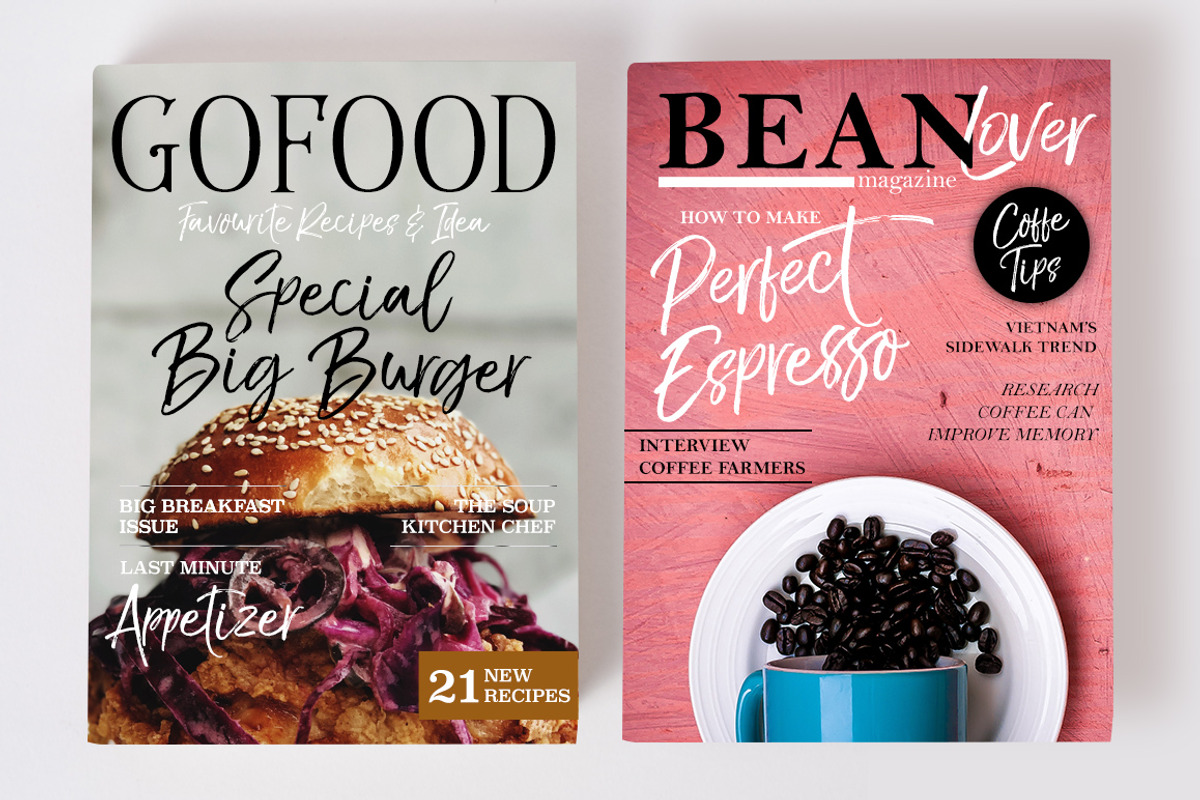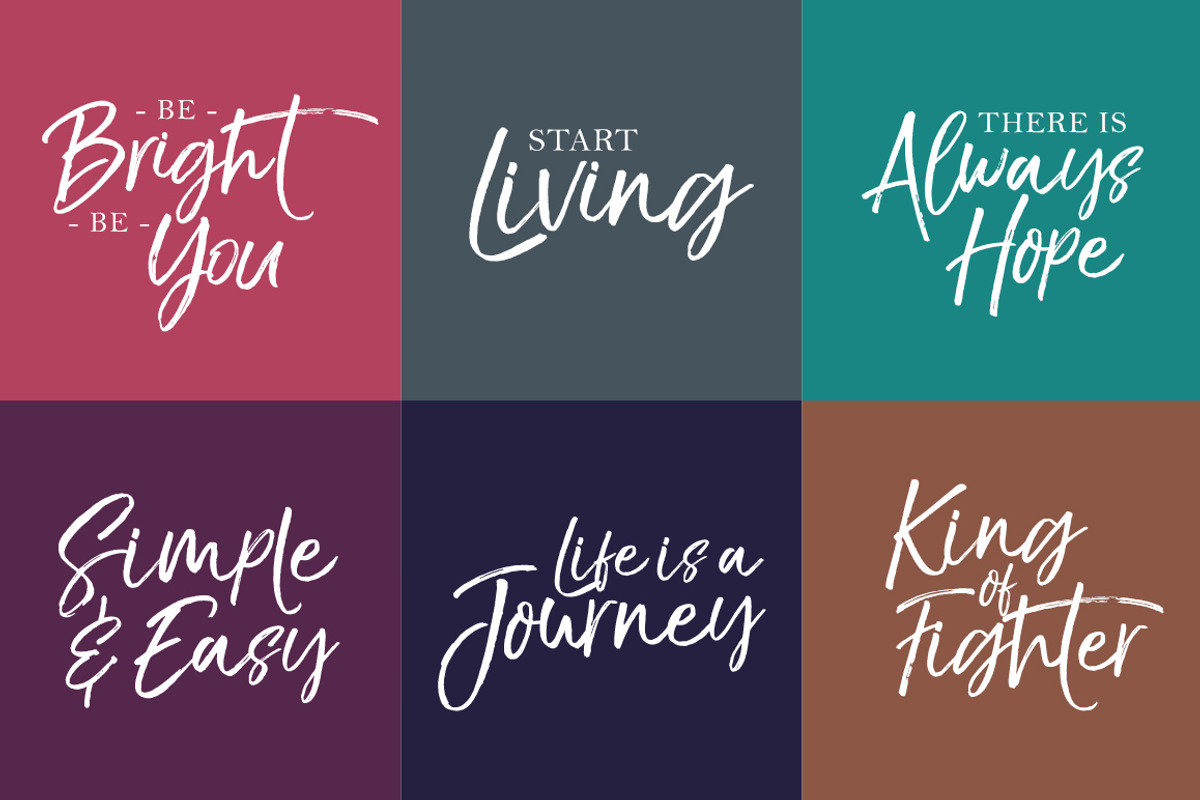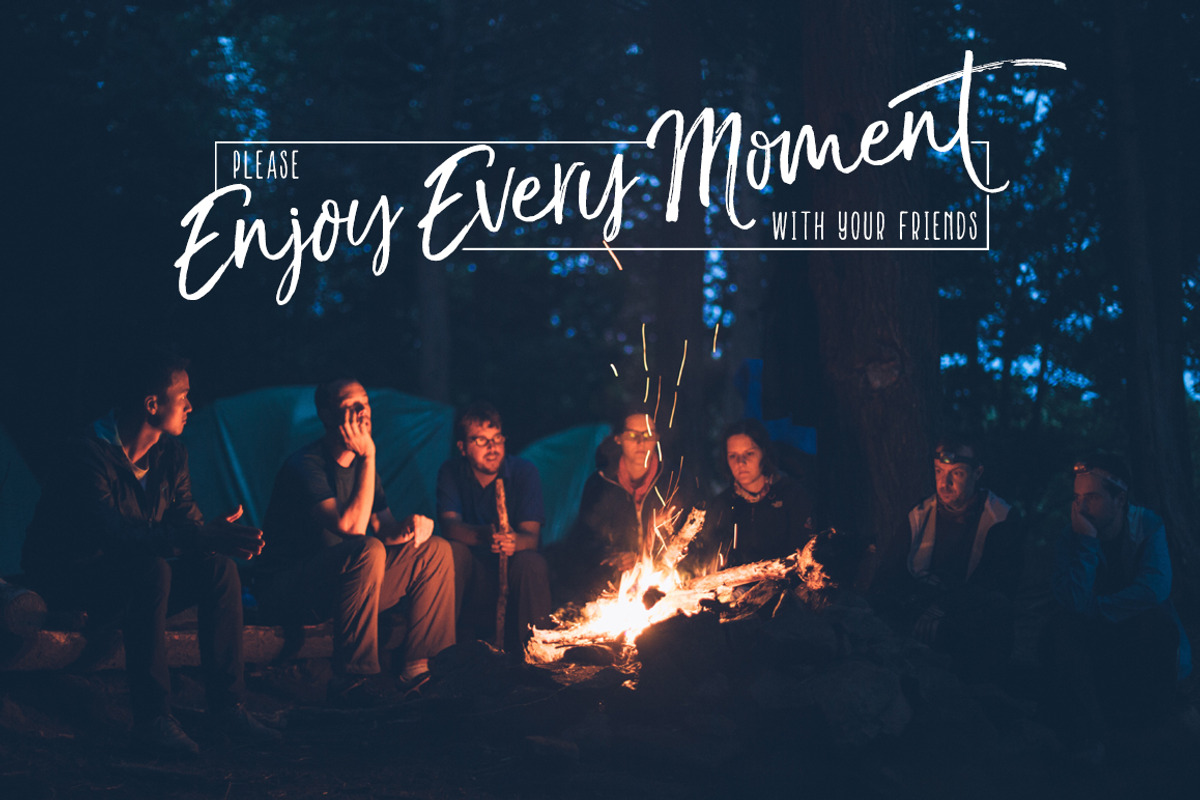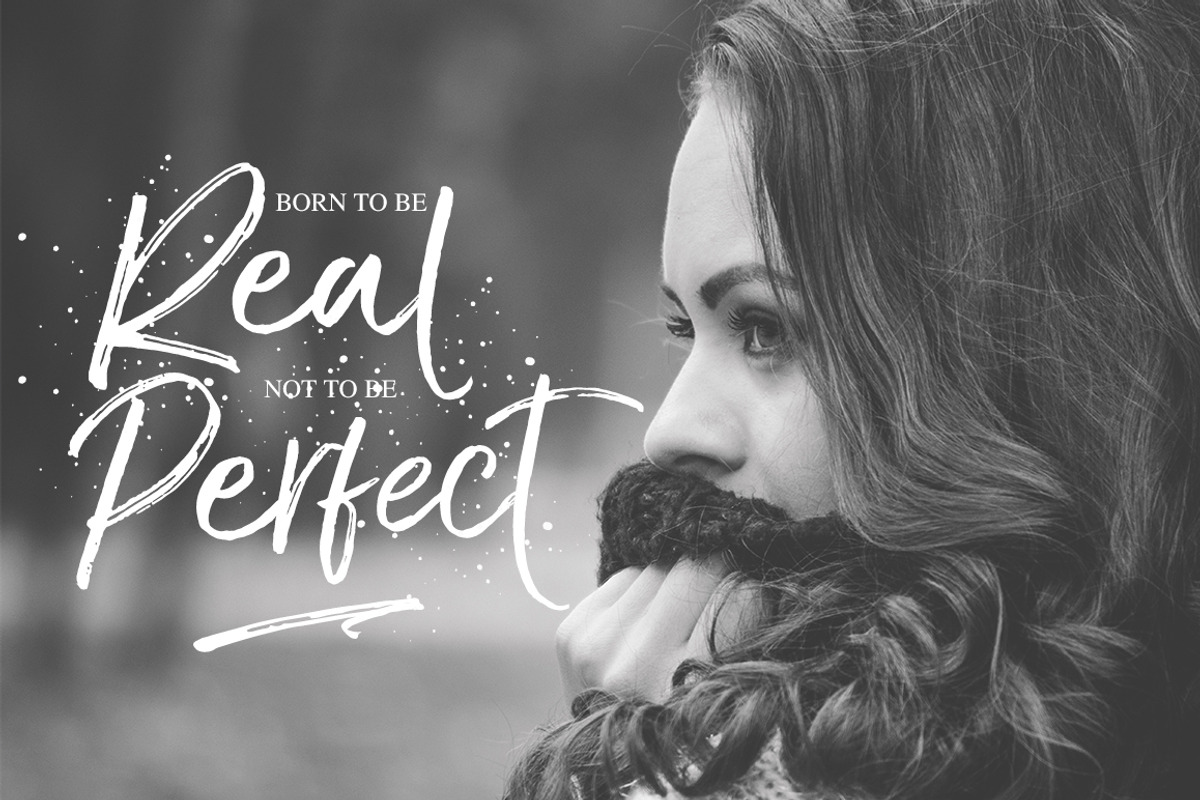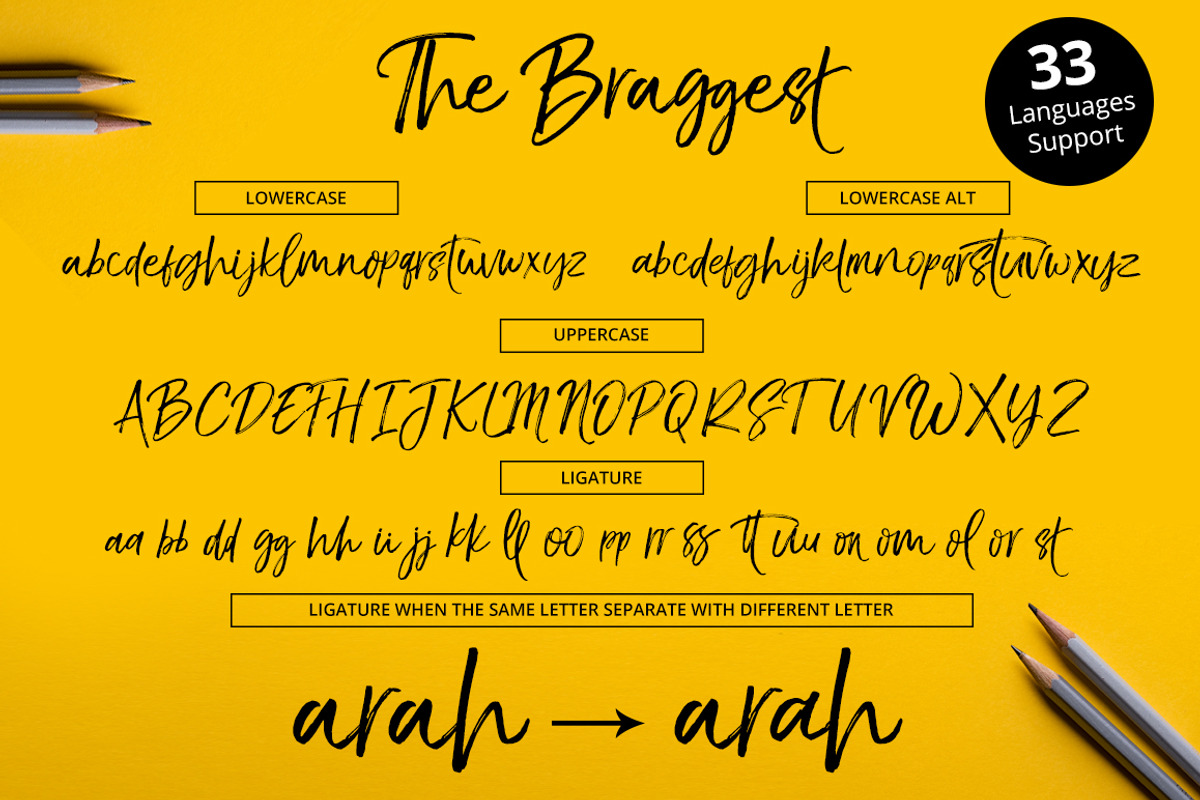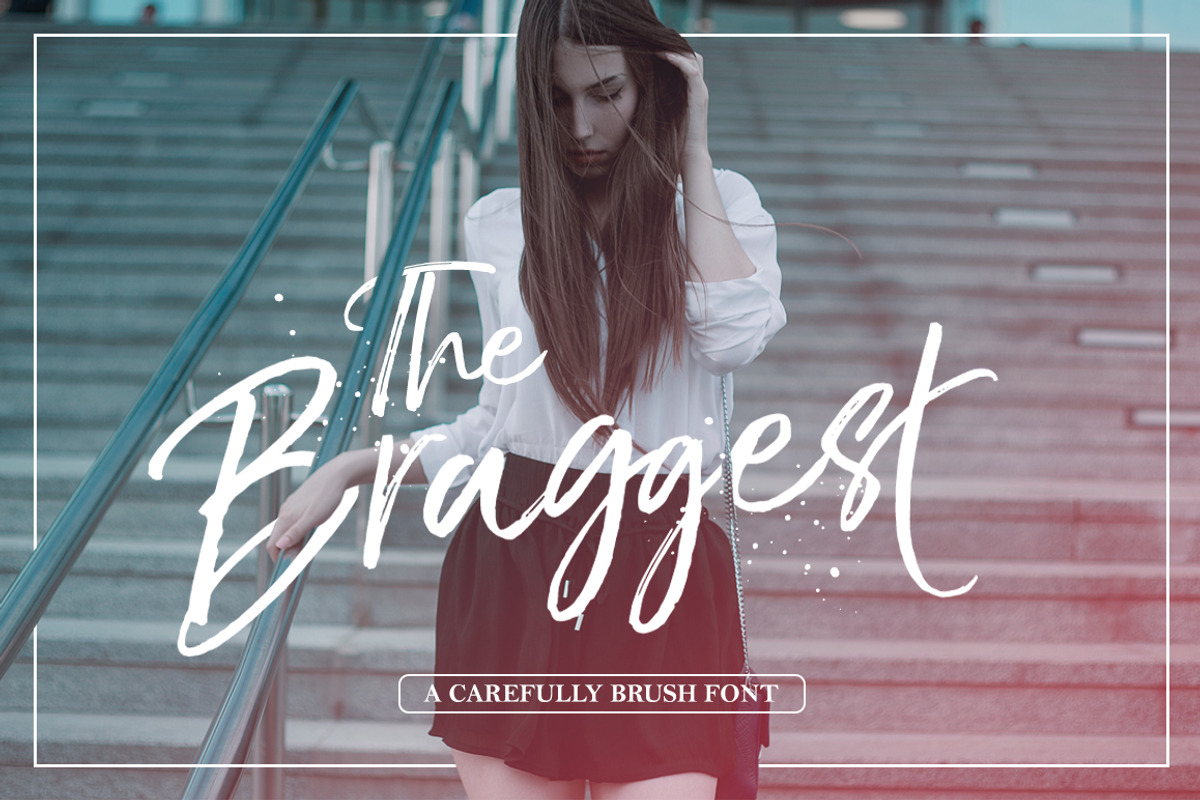
The Braggest (+Webfont)
The Braggest (+Webfont) by Ryan Prasetya is a font selected for branding, posters, packaging, typography.
- The Braggest includes two lowercase characters, and very likely ligature thats allow you to make a personal handwriting especially for brand
Why The Braggest (+Webfont) is worth a look
The Braggest (+Webfont) by Ryan Prasetya fits naturally into Branding, posters, packaging, typography.